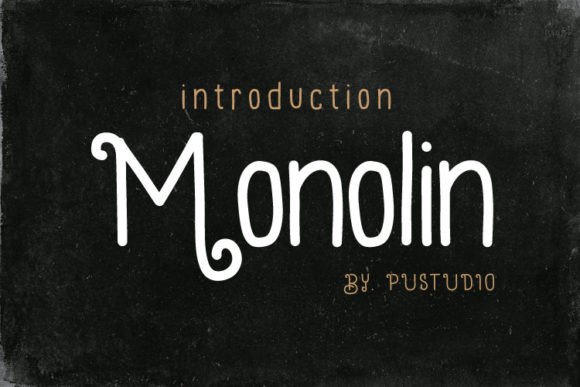
Dive into the world of Monolin, a monoline-style font that exudes charm and personality. With its fresh, casual, and relaxed vintage allure, Monolin is the perfect choice for creative minds seeking to make a lasting impact.
Born from the creative vision of pustudio, Monolin captivates with its effortless elegance and versatility. Its distinctive monoline strokes create a sense of unity and flow, while its carefully crafted curves add a touch of playfulness and warmth.
Monolin seamlessly adapts to a wide range of design projects, from eye-catching posters and alluring book covers to trendy merchandise and captivating fashion campaigns. Its versatility extends to newsletters, advertisements, magazines, and greeting cards, adding a touch of sophistication to any message.
For musicians and artists, Monolin takes center stage on album covers, infusing them with a timeless, retro charm. Its ability to effortlessly blend with various design elements makes it a favorite among creatives seeking a font that complements their unique style.
With Monolin, the boundaries of creativity dissolve, allowing you to weave your artistic vision into reality. Its user-friendly nature makes it accessible to both seasoned designers and those just starting their creative journey.
Embrace Monolin and let your imagination run wild. Its timeless appeal and versatility will elevate your designs to new heights, leaving an unforgettable impression on your audience.